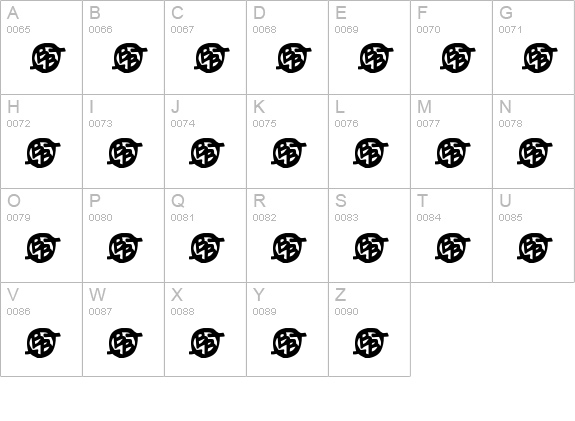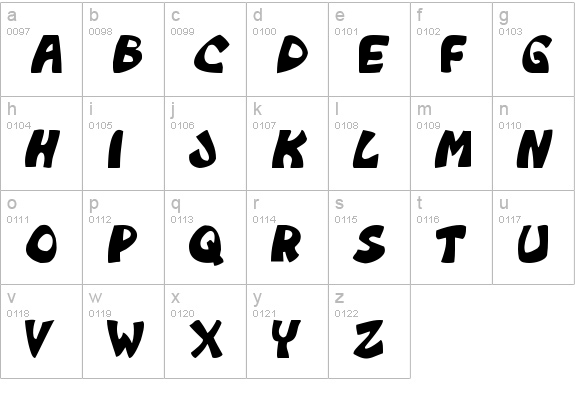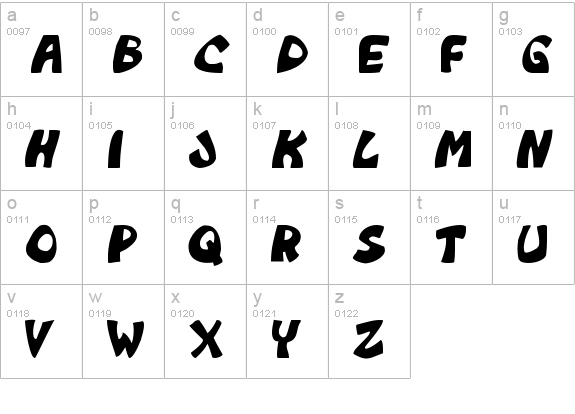
Monkeyboy Font Details
Monkeyboy Font is a playful and whimsical typeface that exudes a sense of fun and creativity. With its quirky shapes and unique design, Monkeyboy is perfect for adding a touch of personality to any project. Whether you're working on a children's book, a party invitation, or a logo design, Monkeyboy Font will bring a sense of joy and lightheartedness to your work. Best of all, Monkeyboy Font is completely free to download at FontsMarket.com. This means you can start using this charming font in your projects right away, without having to worry about any additional costs. So why wait? Download Monkeyboy Font today and let your creativity soar!